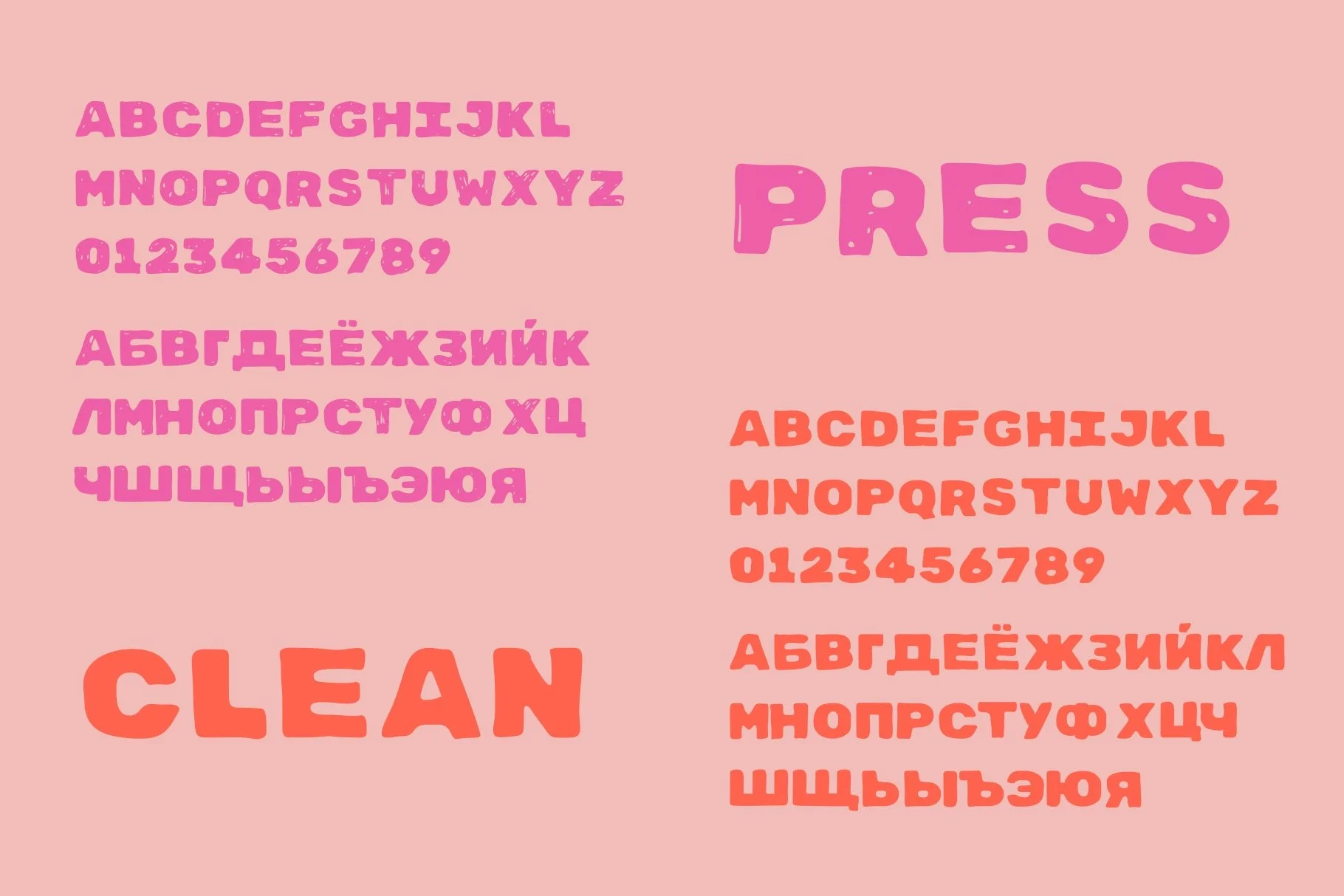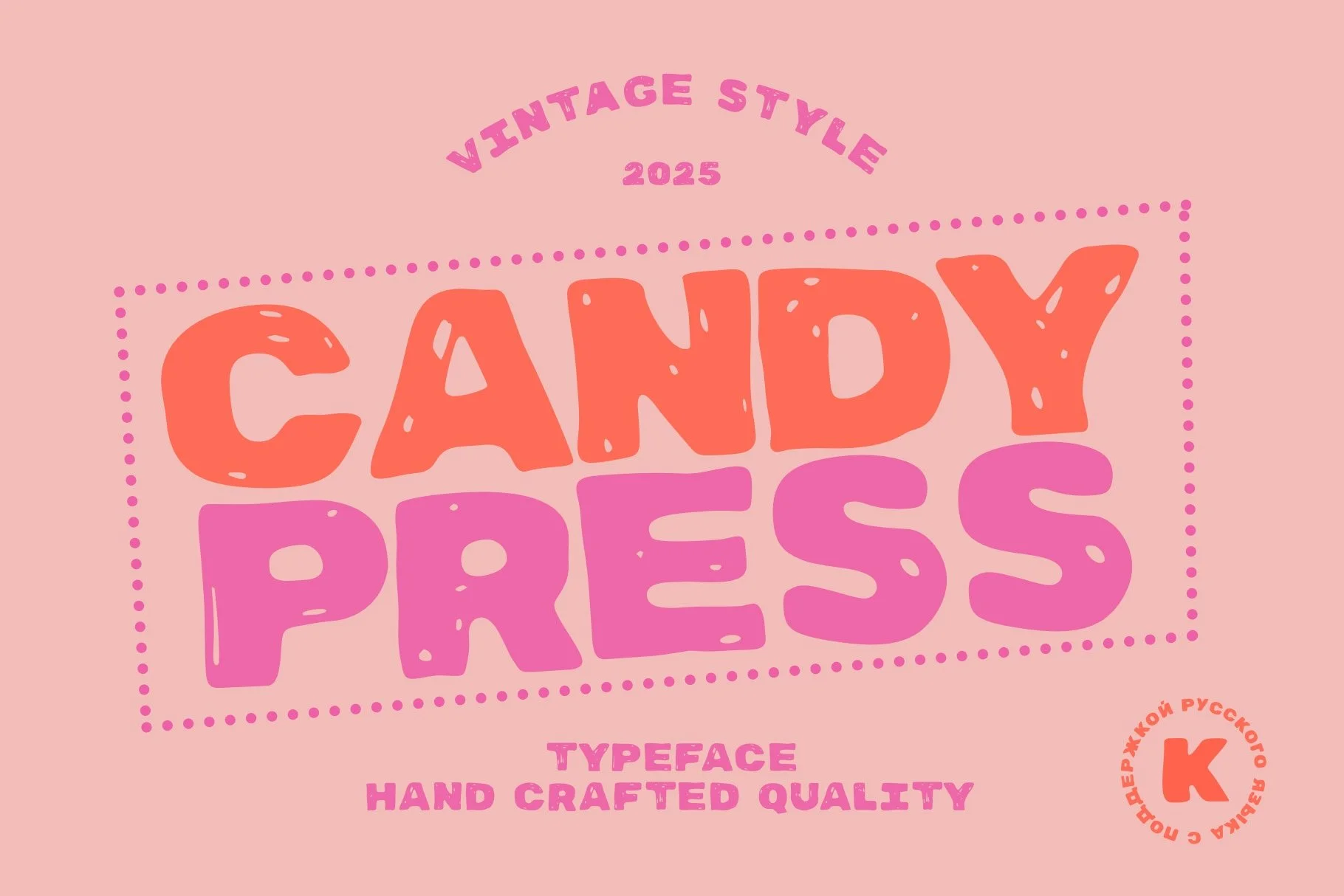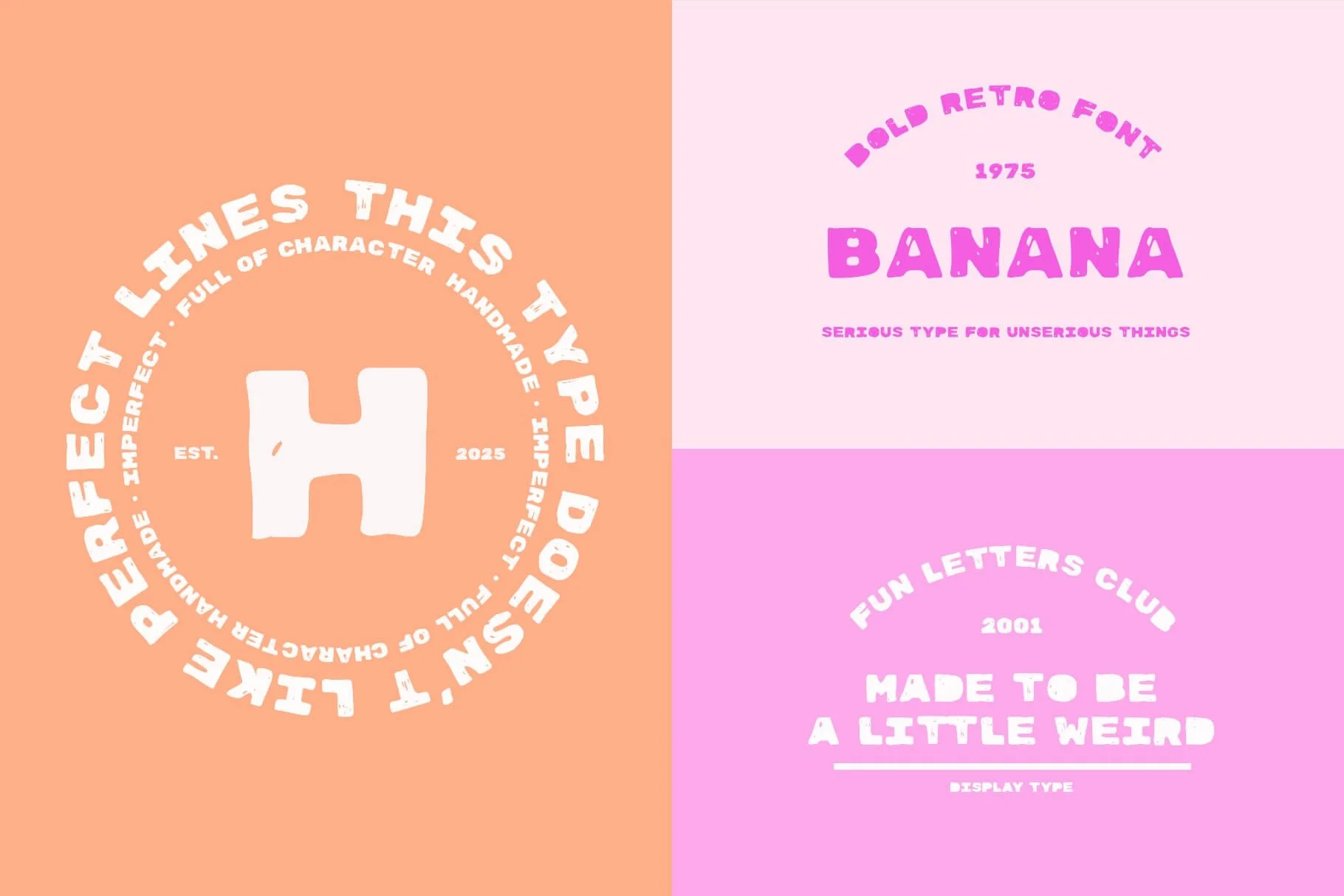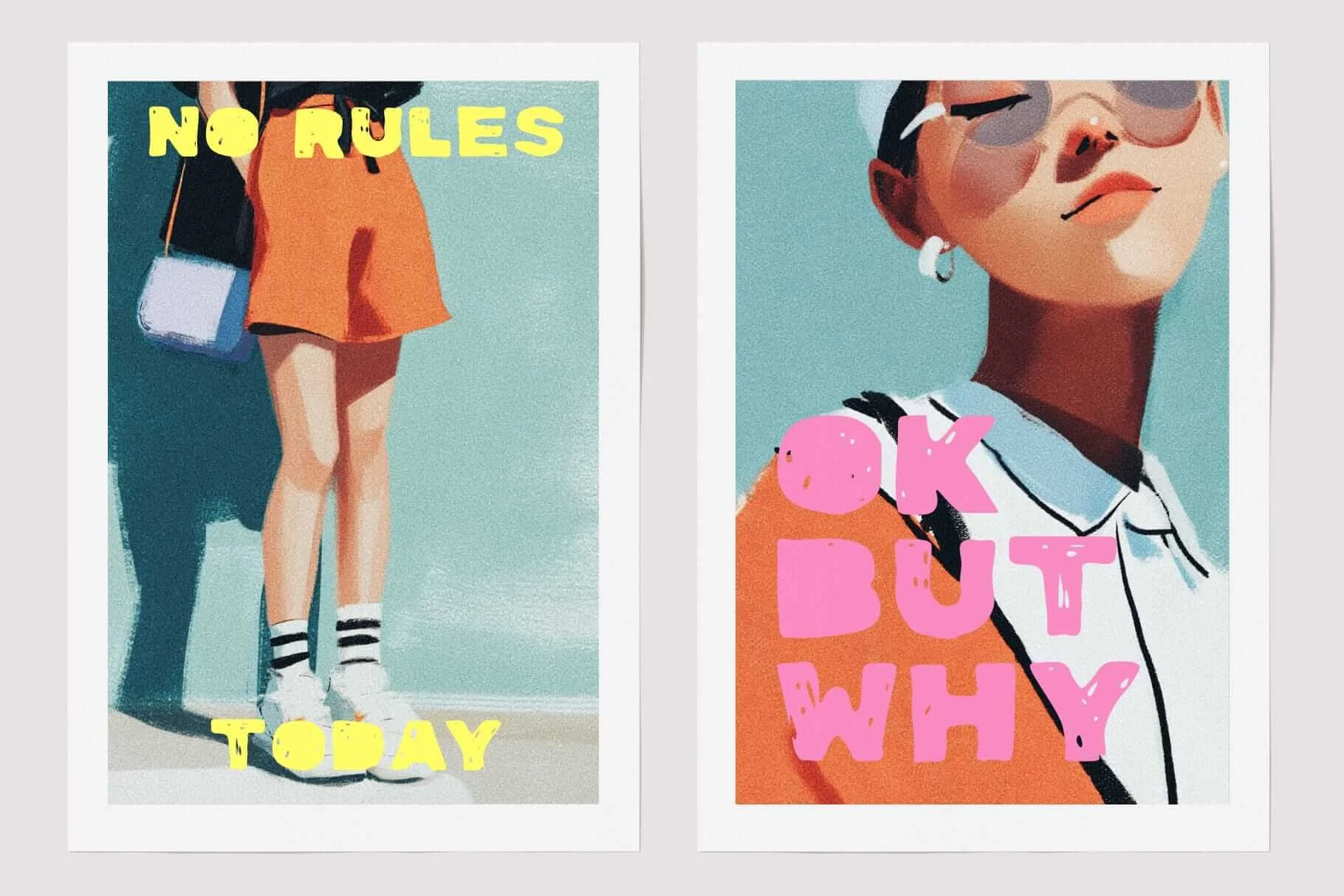
SA Candy Press is an all-caps display font. It is designed specifically for headlines, logos, and short statements where maximum impact is required.
Every letter has been manually distressed to mimic the way a physical printing press leaves "imperfect" edges. This saves you the time of adding textures manually in Photoshop.